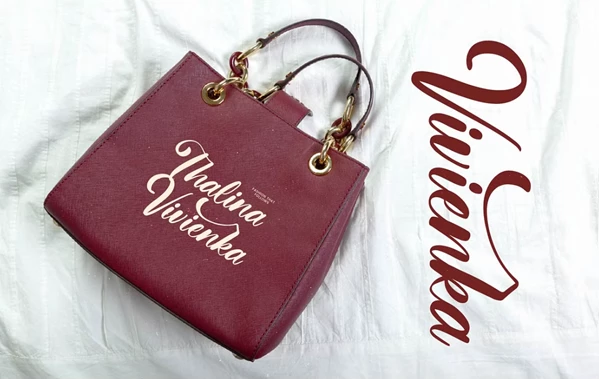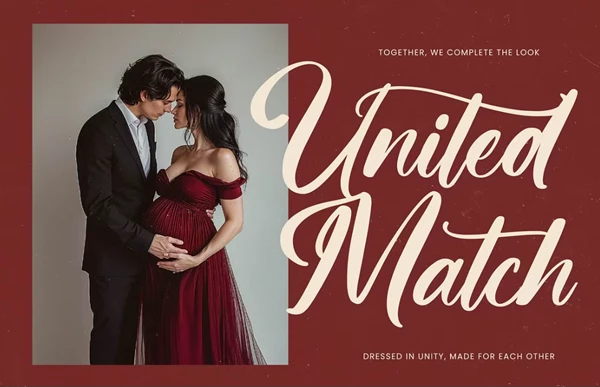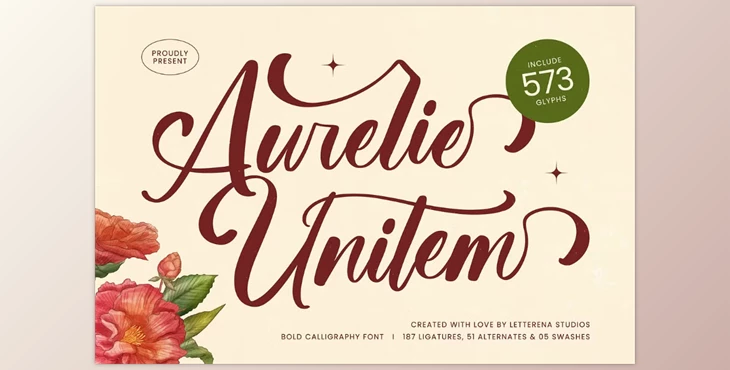
Aurelie Unitem Bold Calligraphy Font:
The Aurelie Unitem Bold Calligraphy Font from Letterena is a luxurious script typeface, perfect for enhancing any project with an elegant touch. Whether designing logos, branding, or working on homeware and product packages, this font adds sophistication to your work. It also enables stunning designs on mugs, t-shirts, posters, and quotes. This font transforms book covers whilst also serving beautifully for designing invitations, greeting cards, and labels, making it ideal for unimaginable creativity, especially during special occasions, as well as a watermark for photos.
Some great features of Aurelie Unitem Bold Calligraphy Font:
- It incorporates a total of 187 ligatures, 51 alternates, and 5 swashes.
- Provides upper and lower case characters.
- Additional services include numerals as well as standard OpenType punctuation marks.
- Provides accent symbols for different languages.
- Contains both ligatures with stylistic sets substitutes and accent marks for all letters.
"Aurelie Unitem Bold Calligraphy Font" Samples: